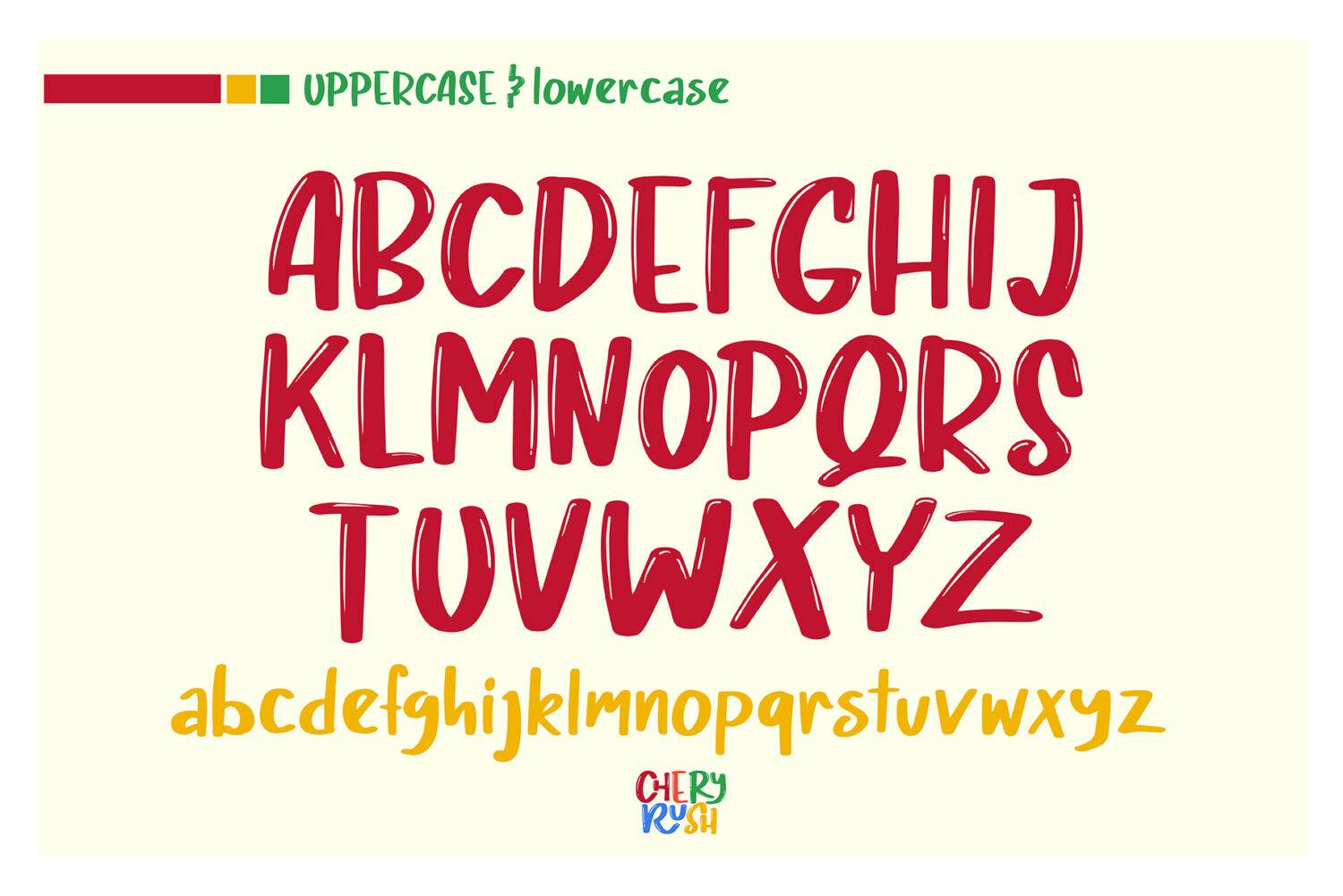
Chery Rush is a playful, hand-drawn sans serif font with a casual and friendly vibe. Its irregular strokes and slightly condensed letterforms give it a lively, informal character, perfect for creative and approachable designs. This font works well for logos, posters, and branding where a personal, hand-crafted feel is desired.
Chery Rush Font
About Chery Rush Font